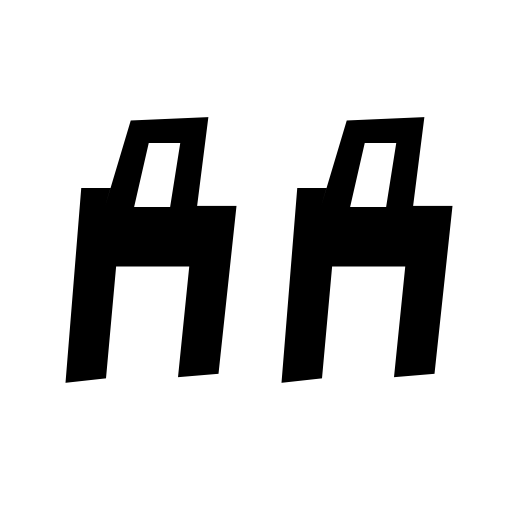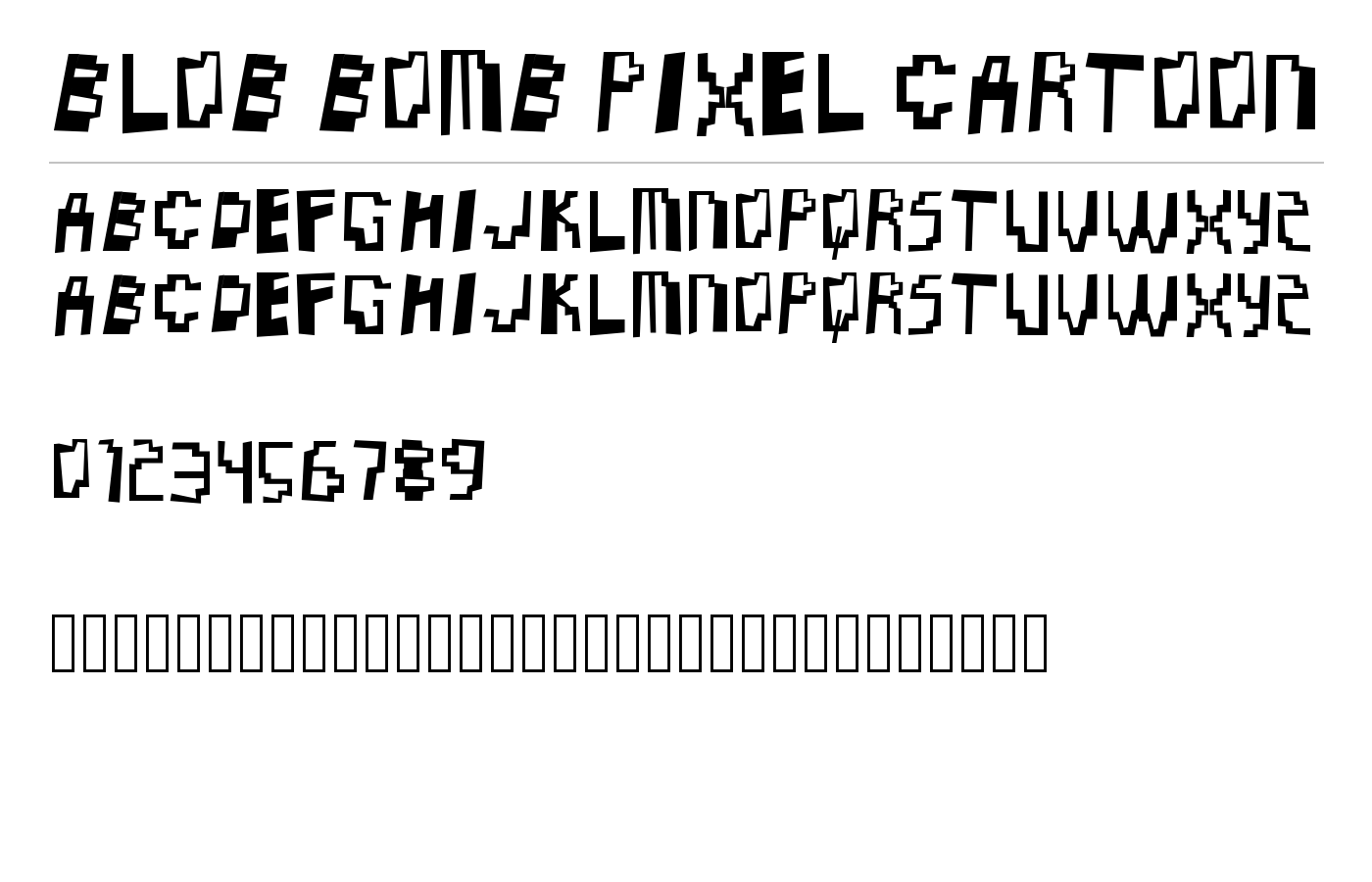
Blob Bomb Pixel Cartoon is a bold, playful sans serif font with a quirky, pixelated style that feels both retro and modern. Its irregular, blocky letterforms and slightly condensed spacing give it an energetic, fun personality perfect for creative projects that want to stand out. This font works best in headlines, posters, and branding aimed at a youthful, casual audience looking for a unique, cartoonish vibe.
Blob Bomb Pixel Cartoon Font
About Blob Bomb Pixel Cartoon Font